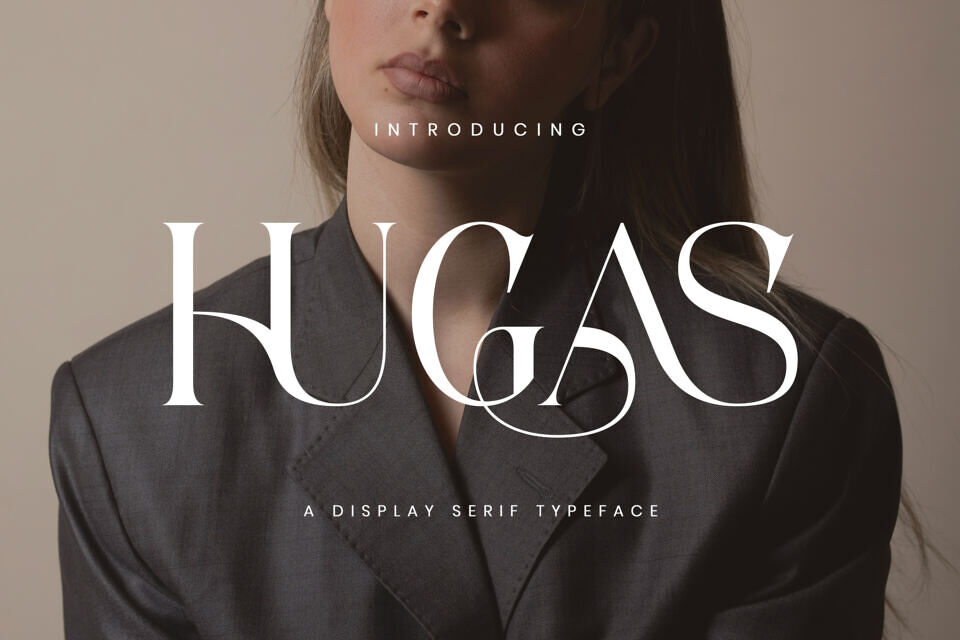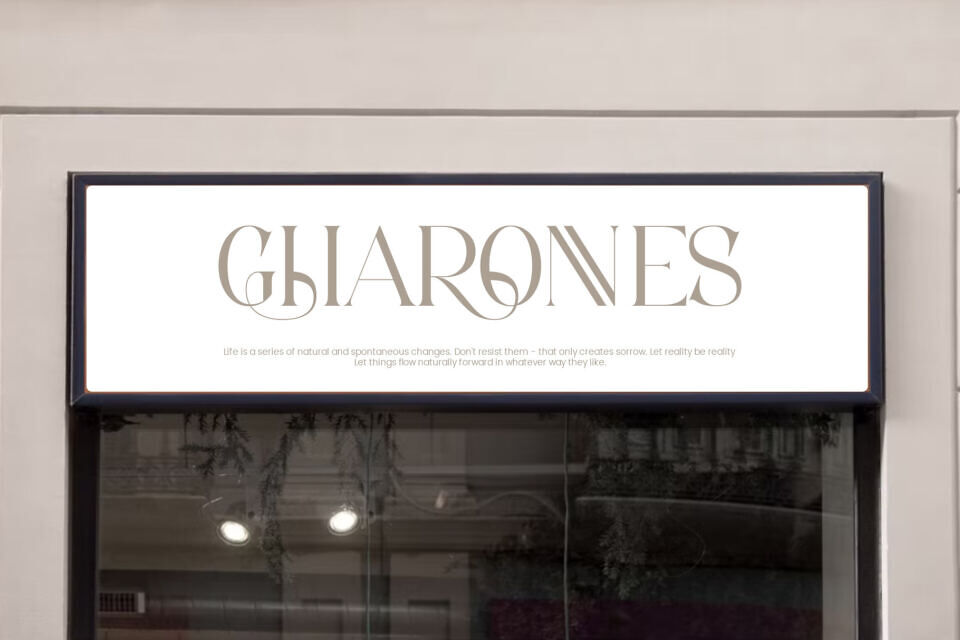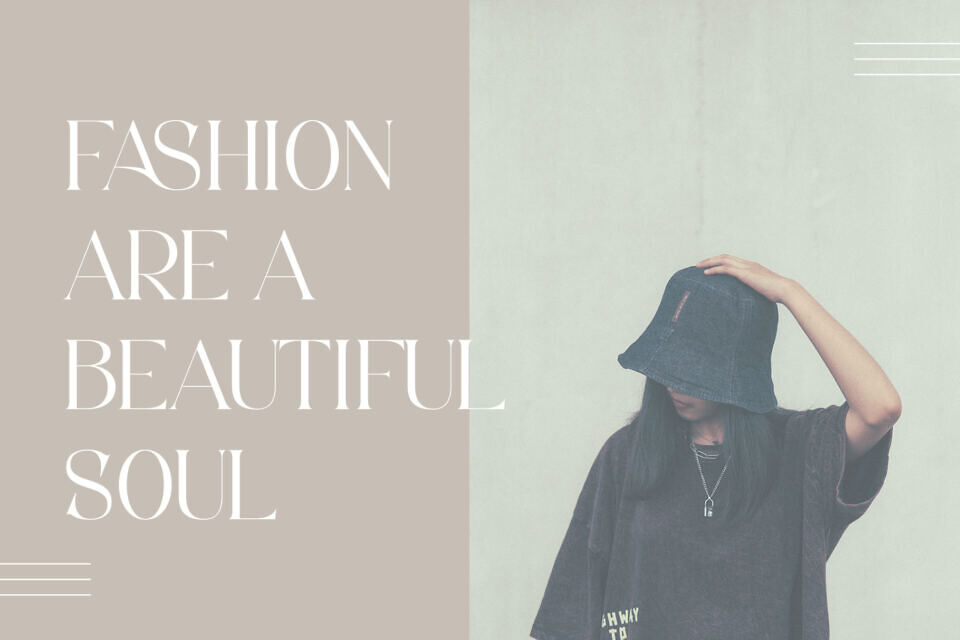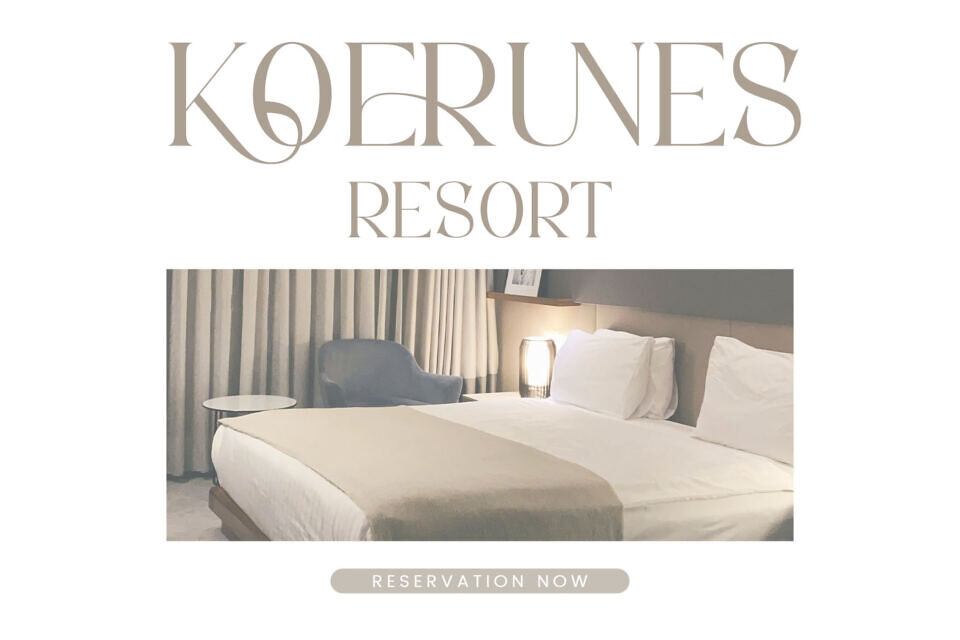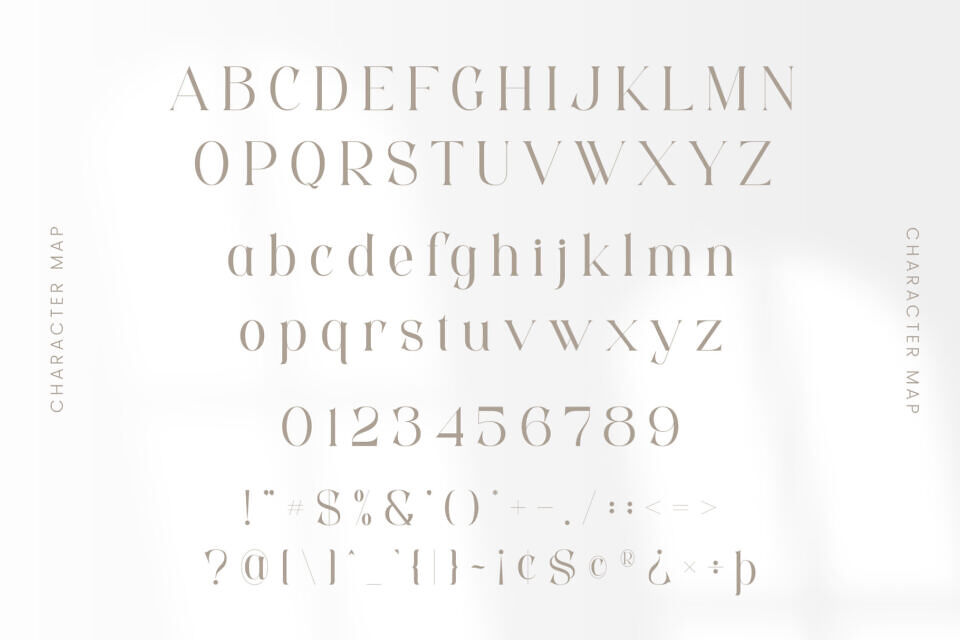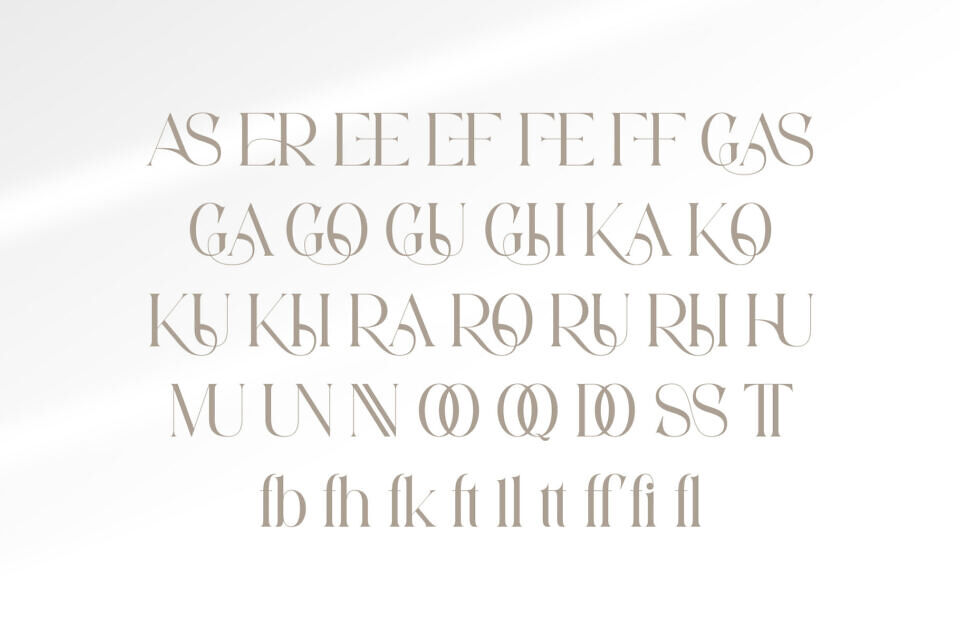
Hugas Font
Hugas is a sleek, modern font inspired by minimalist design. It’s ideal for creating templates, brochures, videos, and branding materials, including logos and fashion advertisements, where a touch of sophistication is needed.